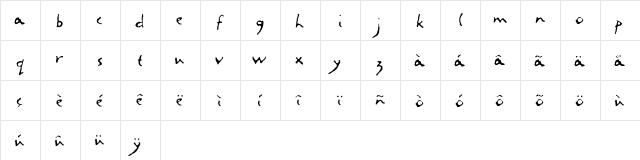
LettresEclatees Regular
Design Context for LettresEclatees Typeface
LettresEclatees is a composed and adaptable typeface that performs quietly and consistently across a wide range of design contexts.